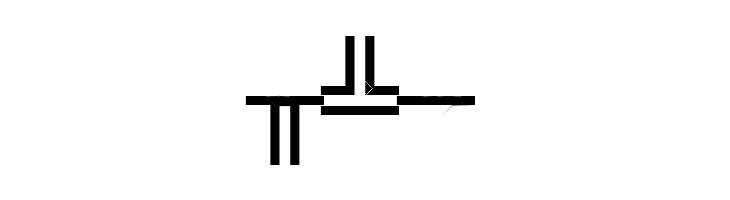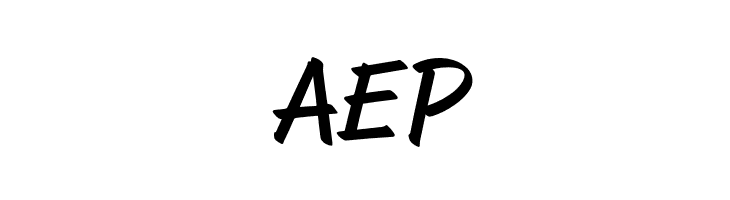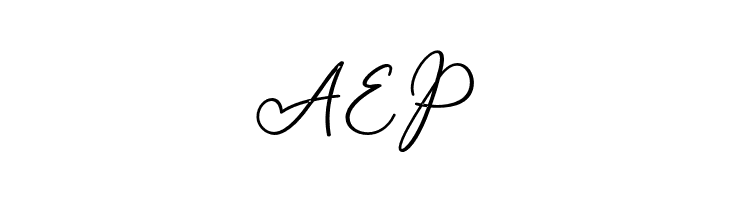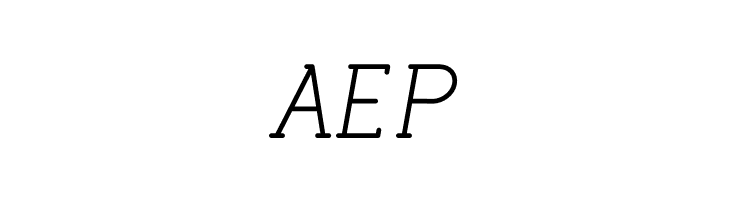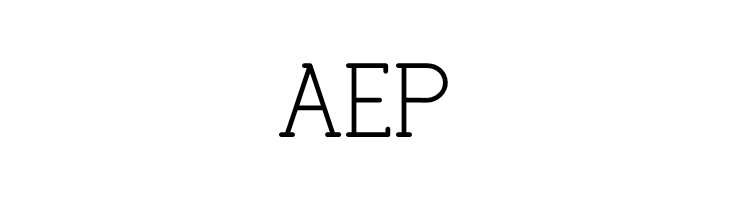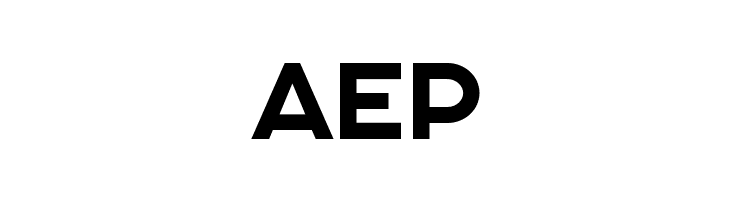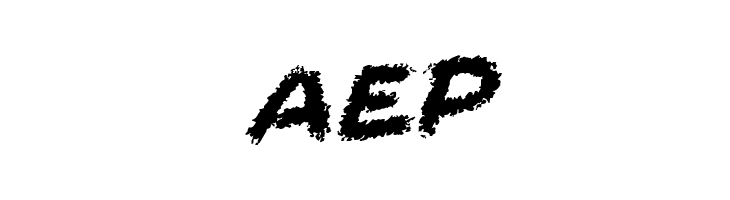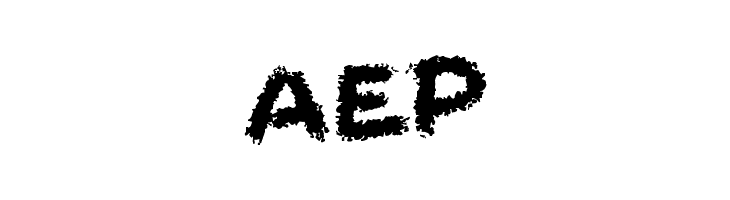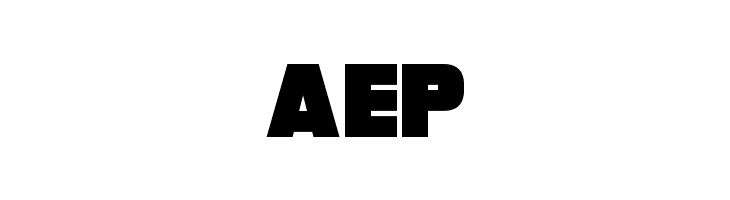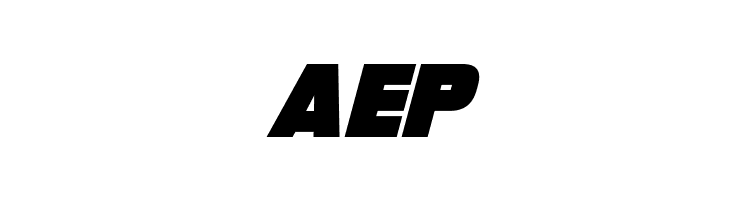
Abstract, geometric design with bold lines and sharp angles.
A whimsical, decorative italic font with playful circular embellishments.
A bold, playful font with rounded characters and unique cut-out details.
A bold, slanted script font with dynamic and fluid letterforms.
A bold, left-slanted font with a modern and dynamic style.
A bold, oblique font with a modern and dynamic style.
A bold, modern font with clean lines and a balanced structure, perfect for impactful designs.
A modern slab serif font with an italic slant, offering clarity and elegance.
A modern slab serif font with geometric shapes and consistent stroke widths.
A bold, modern typeface with geometric shapes and smooth curves.
A whimsical, hand-drawn font with playful, irregular strokes.
A bold, condensed font perfect for impactful headlines.
A bold, semi-expanded typeface with a modern and geometric design.
A bold, geometric font with thick strokes and a modern, clean appearance.
An elegant, flowing script font with smooth, cursive letterforms.
A modern, rounded font with a clean and approachable design.
A modern, rounded, and italic font with a friendly and dynamic style.
A whimsical, handwritten font with playful curls and decorative elements.
A bold, chalk-textured font with an informal, hand-drawn style.
A playful, textured font with a chalk-like, hand-drawn appearance.
A bold, impactful font with strong, thick strokes and geometric shapes.
A bold, italic font with a dynamic and energetic style.
A bold, italicized font with a modern, dynamic, and geometric style.
A bold, cursive font with fluid, interconnected characters and elegant flourishes.
A bold, cursive handwritten font with dynamic, flowing characters.
A bold, dynamic script font with sweeping curves and strong presence.
A bold, expressive script font with dynamic flow and decorative flourishes.
A futuristic, geometric font with sharp angles and a bold, cohesive design.
A modern, geometric font with consistent strokes and a futuristic style.
A sleek, geometric font with a modern and minimalist design.
A bold, playful font with thick, rounded characters and a whimsical style.
A bold, rounded font with a playful and modern style.